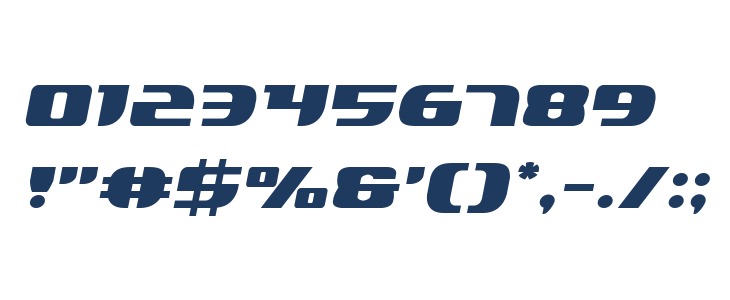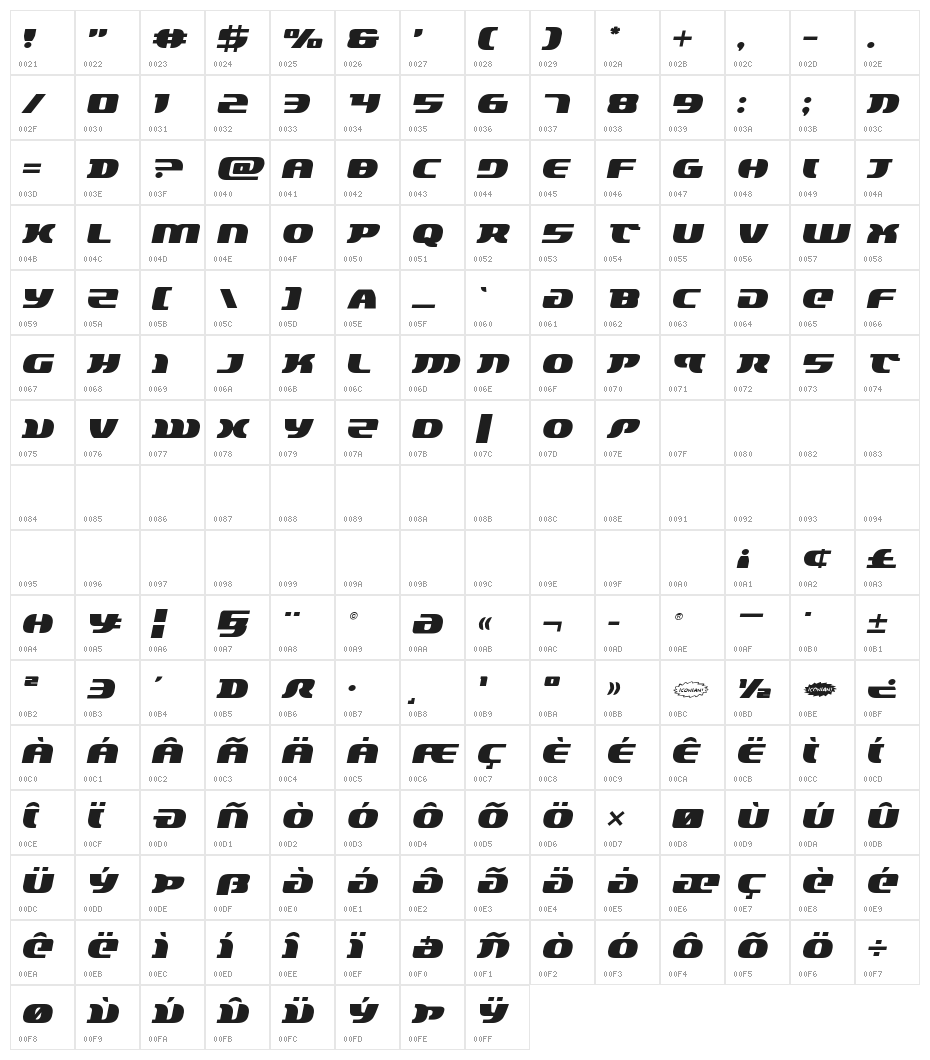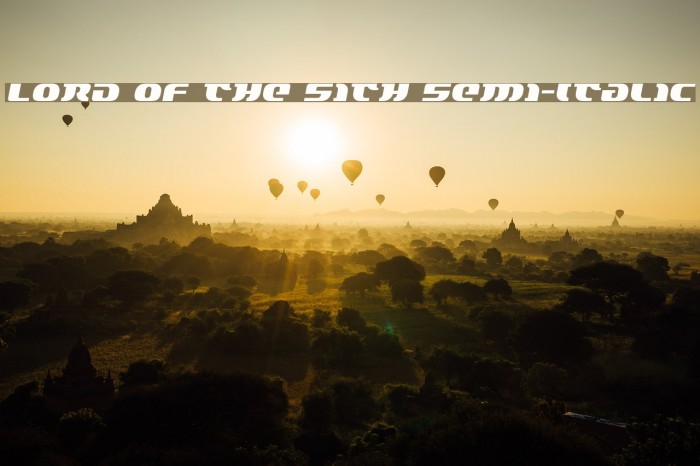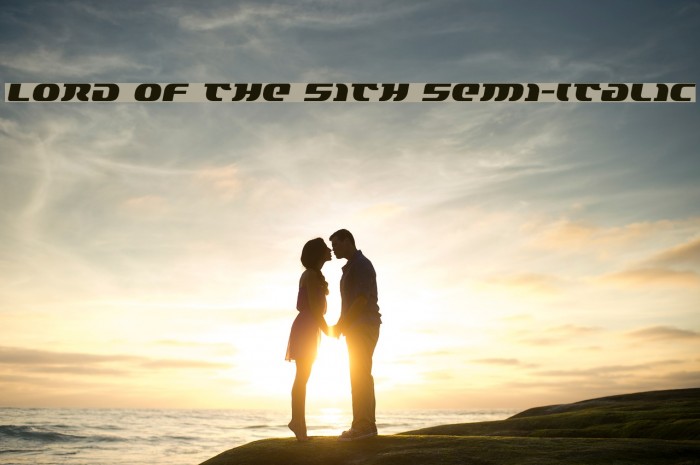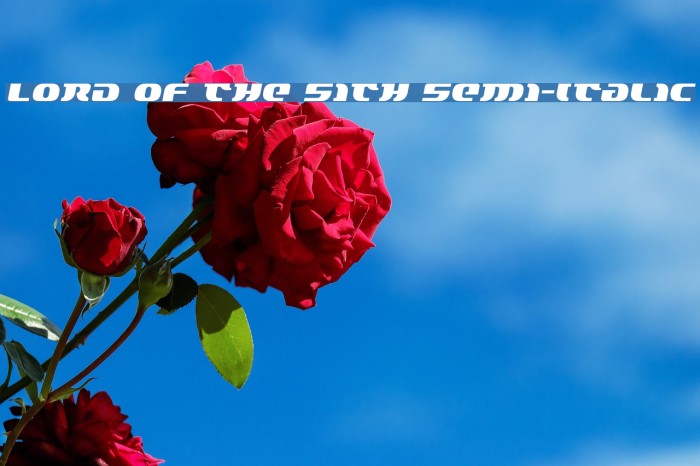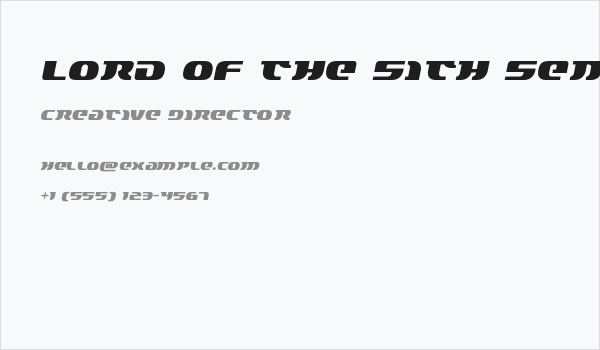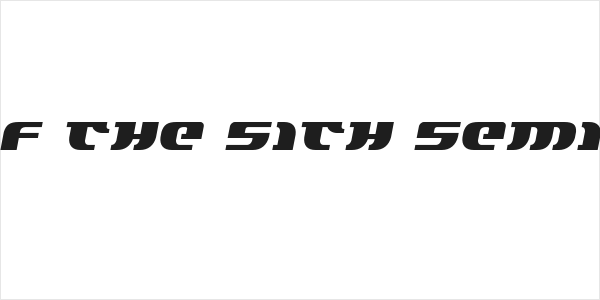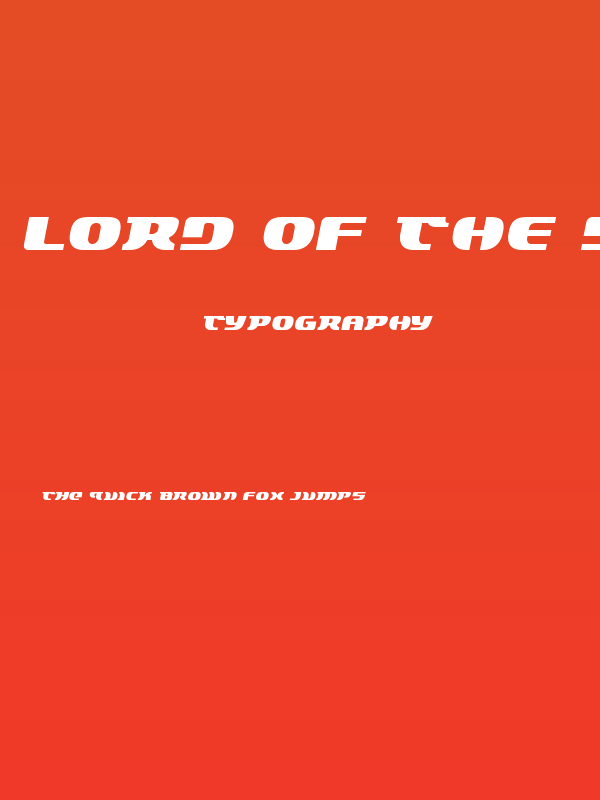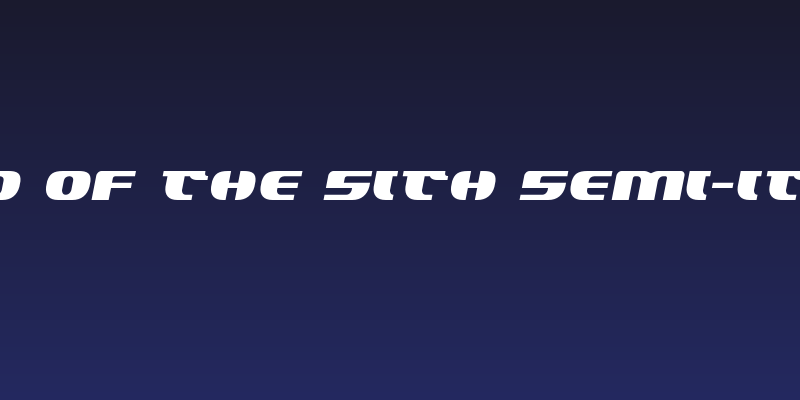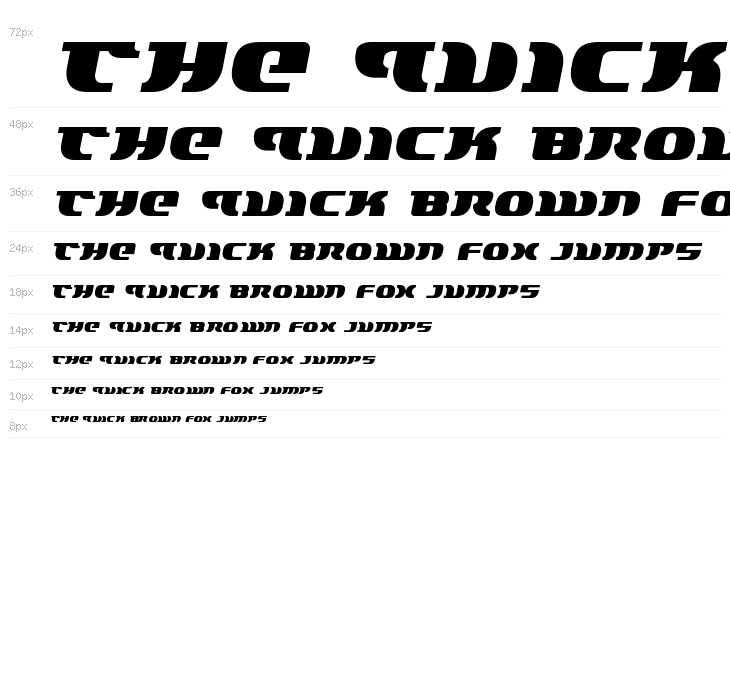
Lord of the Sith Semi-Italic Font
Lord of the Sith Semi-Italic Description
This font features a bold and dynamic style with semi-italic characteristics, giving it a sense of movement and energy. The letters are wide and have a futuristic, sci-fi appearance, with sharp angles and unique cutouts that add to its distinctiveness. The uppercase and lowercase letters maintain a consistent design, ensuring readability while still being visually striking. The numbers and special characters are designed to match the boldness and style of the alphabet, making it suitable for various creative applications.
| Proposed Projects | Ideal for sci-fi themed projects, movie posters, video game titles, and branding that requires a modern and edgy look. |